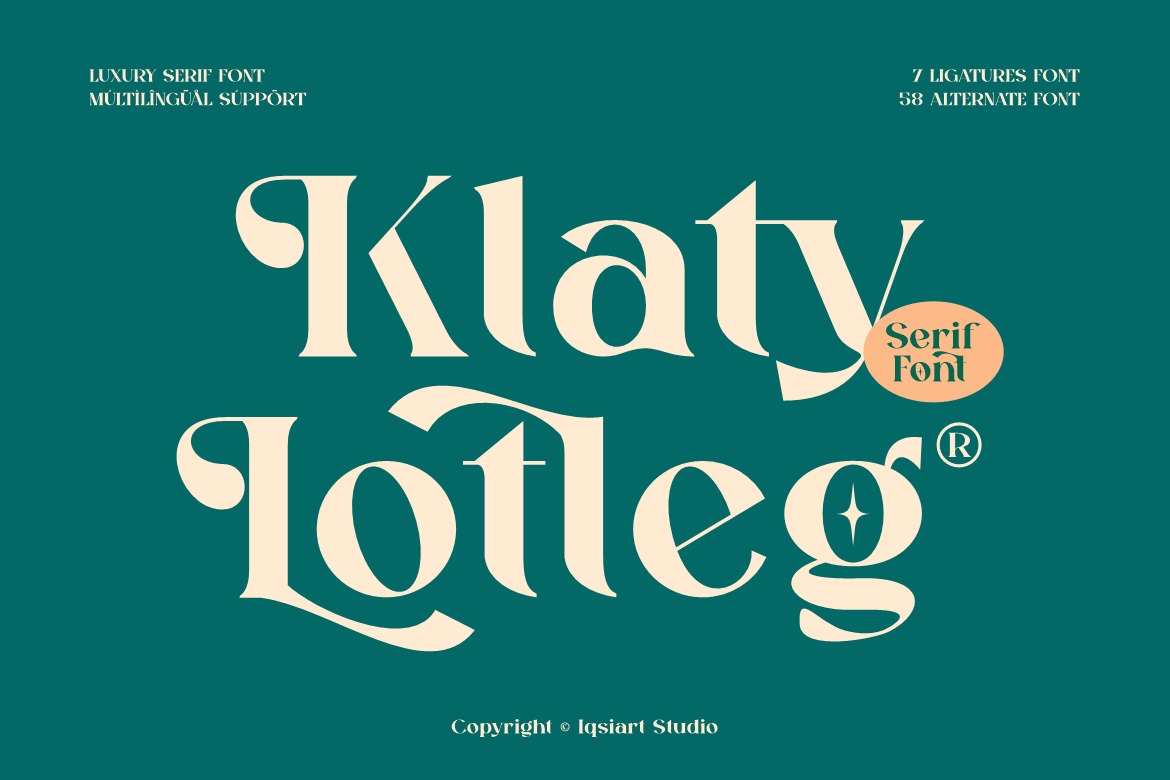
Klaty Lotleg – Modern Serif Font
Klaty Lotleg – Modern Serif Font is a premium-quality font developed to enhance your work with a polished, modern, and visually elevated look. Klaty Lotleg Font is a serif and authentic display typeface that suits a variety of design needs. We offer a wide range of themes and font styles — visit our profile to explore more and find the perfect style for your project.